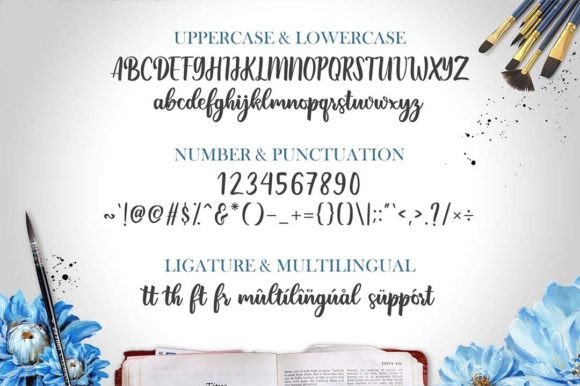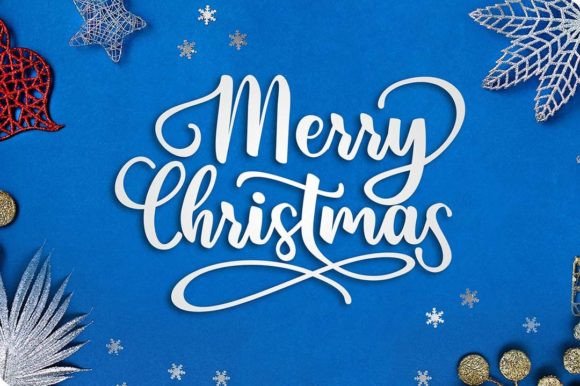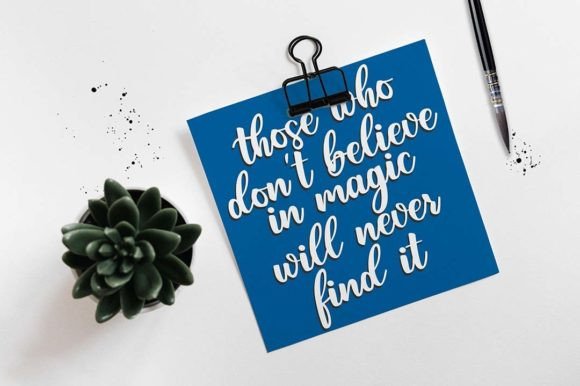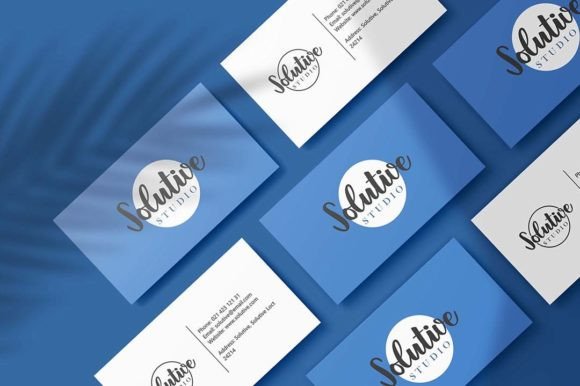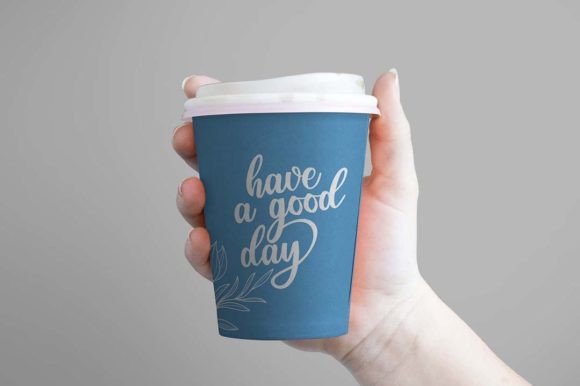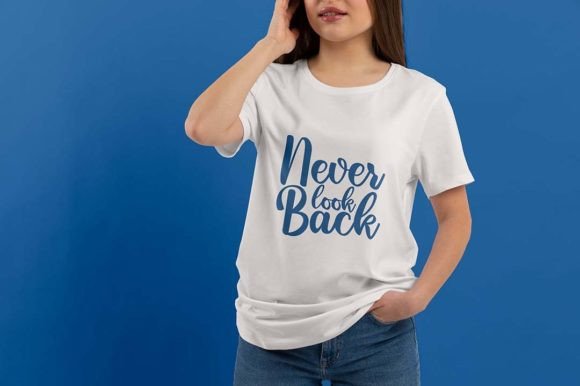
The Quest for the Perfect Font: Discovering Brightly
I’ll never forget the time I was working on a wedding invitation project, and my client asked for a font that was “romantic,” “lovely,” and “totally unique.” I scoured the internet, tried out dozens of fonts, but nothing seemed quite right. That was until I stumbled upon Brightly Font. ✨
As soon as I saw it, I knew I had found the one. The beautiful curves, the elegant flow, and the whimsical touches won me over. I used it for the wedding invitation, and my client loved it. But I soon realized that Brightly was more than just a pretty font – it was versatile, practical, and perfect for a wide range of design projects.
An Honest Review of Brightly Font
- ✨ Beautiful, flowing curves in every letter
- ✅ Romantic and lovely, perfect for wedding invitations and other special occasions
- ✅ PUA encoded, making it easy to access all the amazing glyphs and ligatures
- ✅ Suitable for a wide range of design projects, from headlines to posters, magazines, and books
While Brightly Font is an amazing font, there are a few things to keep in mind. 🤔
- ⚠️ Some users may find the font a bit too ornate or delicate for certain projects
- ⚠️ As with any script font, it may not be the best choice for body text or long blocks of text
The Story Behind Brightly Font
Brightly Font was designed with love and care by a talented typographer who’s passionate about creating beautiful, functional fonts. The designer’s inspiration came from traditional calligraphy and handwriting, with a modern twist. 💫
The goal was to create a font that’s both elegant and approachable, perfect for a wide range of design projects. And with its PUA encoding, Brightly Font makes it easy to access all the amazing glyphs and ligatures, adding an extra layer of creativity to your designs.
Q: What is PUA encoding, and how does it work?
A: PUA (Private Use Area) encoding is a way to access additional characters and glyphs in a font. In the case of Brightly Font, PUA encoding allows you to access all the amazing glyphs and ligatures, making it easy to add extra flair to your designs.
Q: Is Brightly Font suitable for body text or long blocks of text?
A: While Brightly Font is a beautiful font, it’s not ideal for body text or long blocks of text. It’s best used for headlines, titles, and short paragraphs, where its elegant curves and flowing lines can shine.